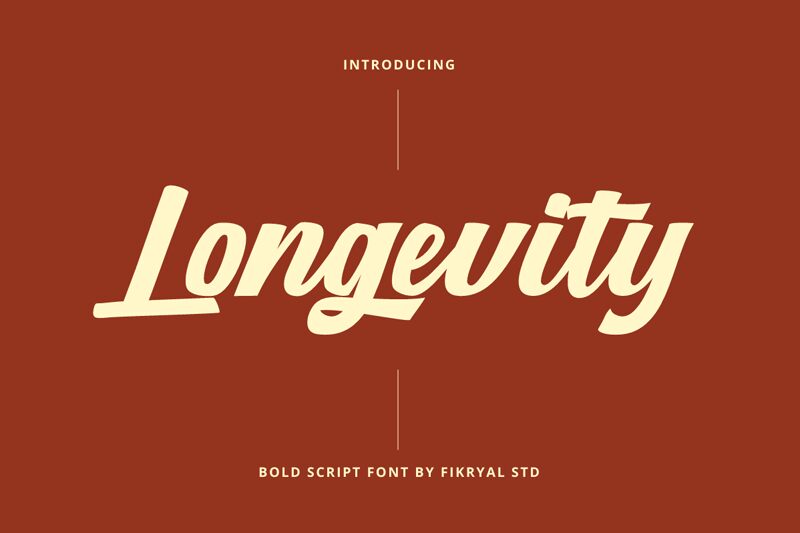
Longevity
Longevity, crafted by Fikryal Studio, embodies the elegance of vintage charm through its retro script style. This font features fluid, sweeping letterforms that evoke a sense of nostalgia while maintaining a modern flair. Its strikingly bold appearance creates an immediate impact, while the graceful curves add warmth and personality.
Ideal for branding projects, packaging design, and promotional materials, Longevity imbues any text with a sense of heritage and authenticity. It’s perfect for capturing attention in eye-catching headlines or adding character to illustrative designs. The unique style makes it suitable for both casual and sophisticated applications, allowing designers to convey messages with flair and distinction.